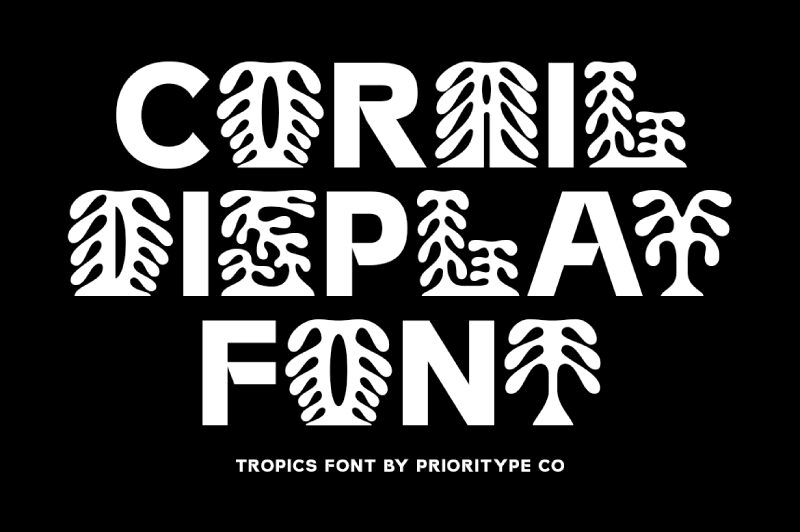
Corail Display font by Prioritype Co is a free font that captures the organic beauty of nature. Designed with a unique tropical-themed flair, this font offers vibrant and artistic aesthetics that contribute to its bold visual presence. The unusual yet enjoyable character of Corail makes it expressive and inviting for any project, with an authentic art-deco to psychedelic era vibe inspiration. It has been crafted to optically be beautiful and readable with openness of the environment and nature in mind.
Give your work an eye-catching and impactful presence thanks to this typeface that works exceptionally well within posters, banners, magazines, websites, blogs, packaging, set design, film and series subtitles, marketing materials, and branding projects. It shines exceptionally well in titles rather than in body paragraphs by providing a solid presence to any word typed.
With its legibility and contemporary approach, it can also be used in applications, UX/UI designs, and games. Corail Display font is offered for free but only for personal usage. To use it within commercial work, the purchase of a commercial license would be required.